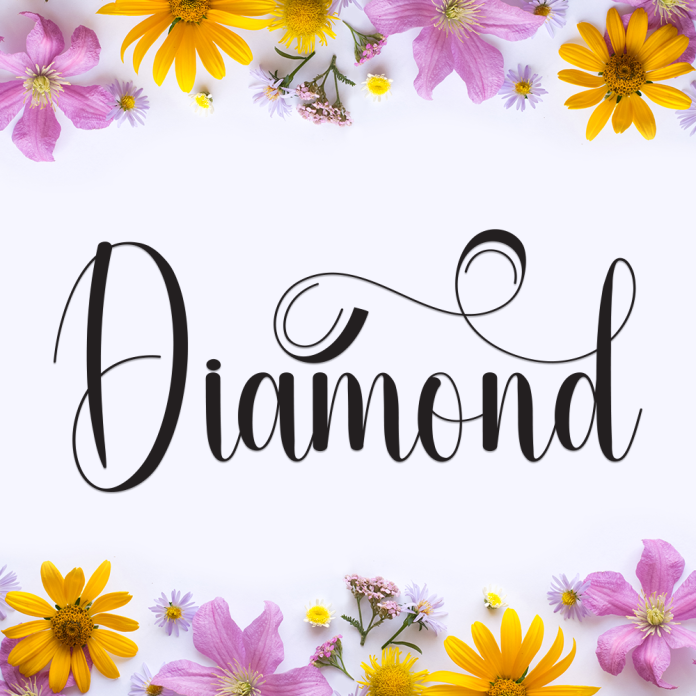
Diamond is a luxurious and graceful handwriting font that captures the beauty of handwritten elegance. With its smooth strokes and refined curves, this font radiates class and sophistication, perfect for premium designs.
Elegant handwritten style with natural flow
Ideal for wedding invitations, branding, and signature logos
Thin yet stylish strokes for a high-end look
Includes uppercase, lowercase, numbers, and punctuation
Multilingual support for diverse design needs
Let your words shine with the timeless beauty of Diamond, a handwriting font that sparkles with elegance.